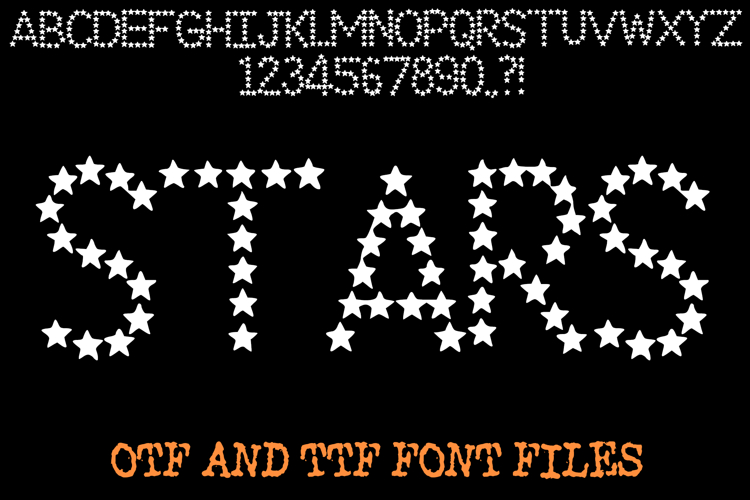
Stars Alphabet Lettering ABC Text Font OTF Type Illustration
A unique celestial starry style font where you can create your own words and colour them to your vision!